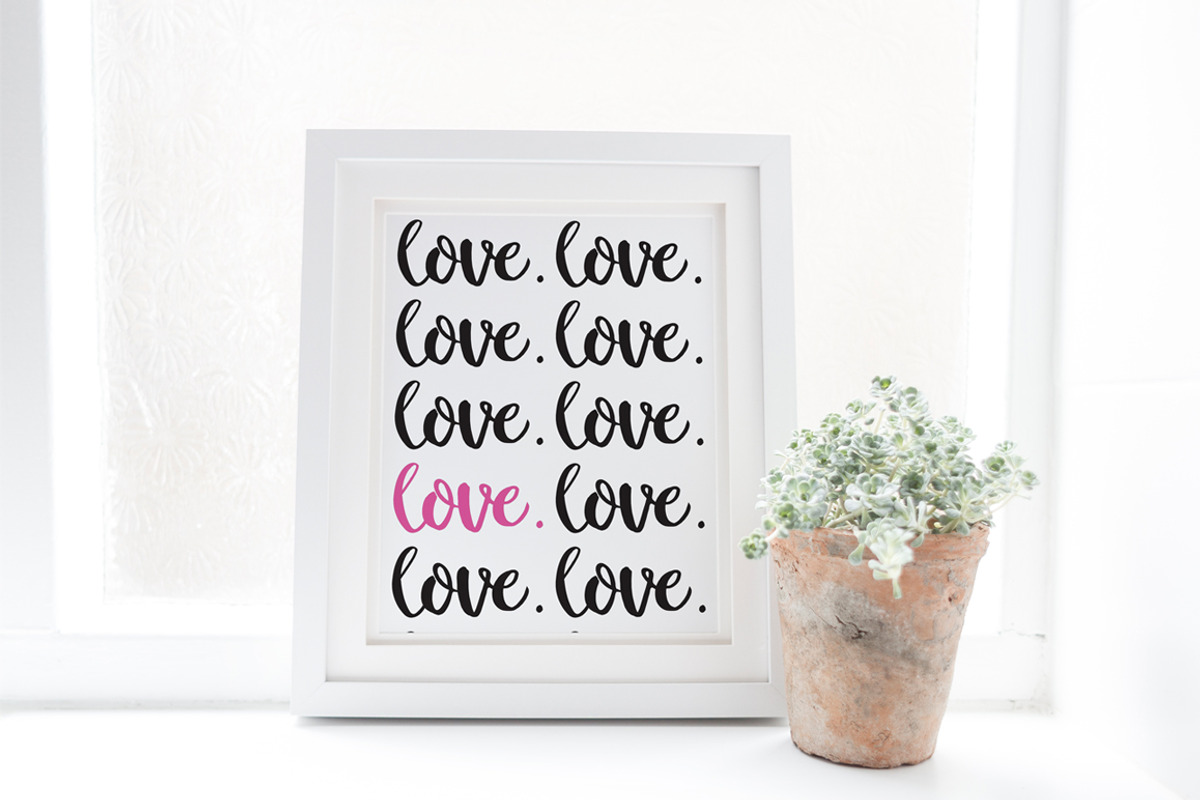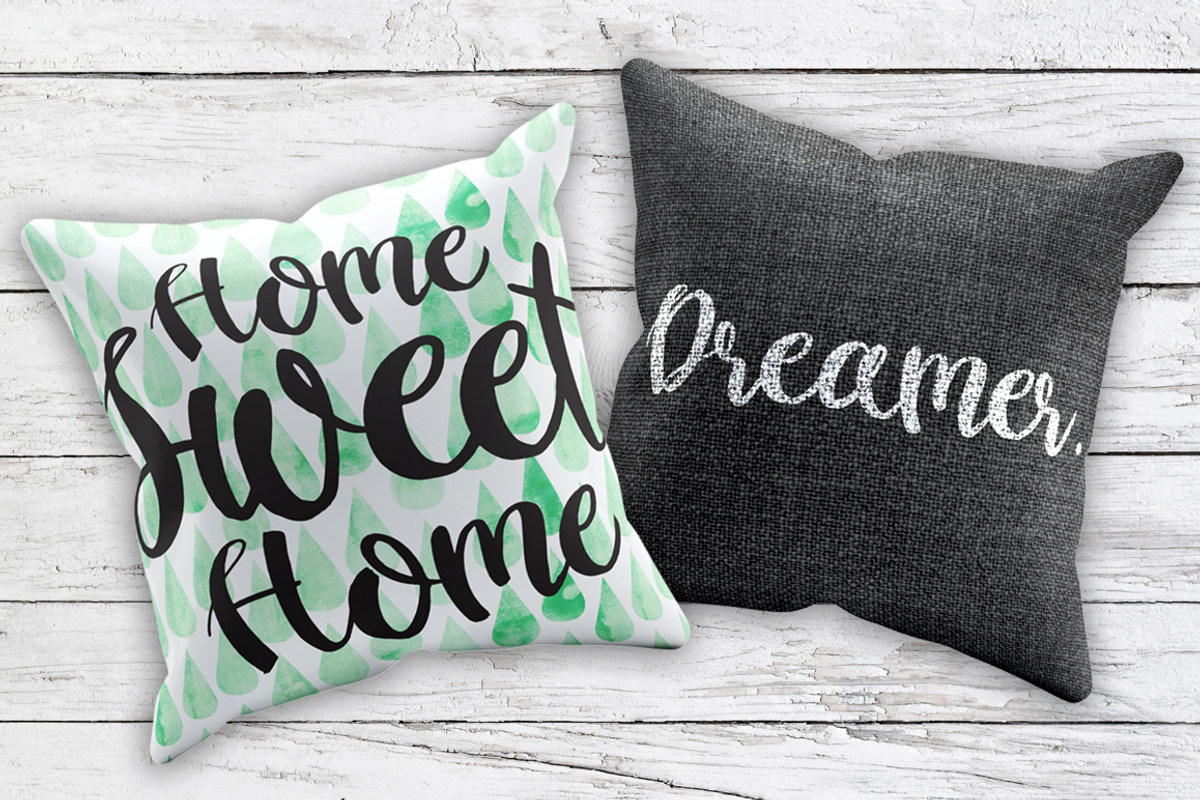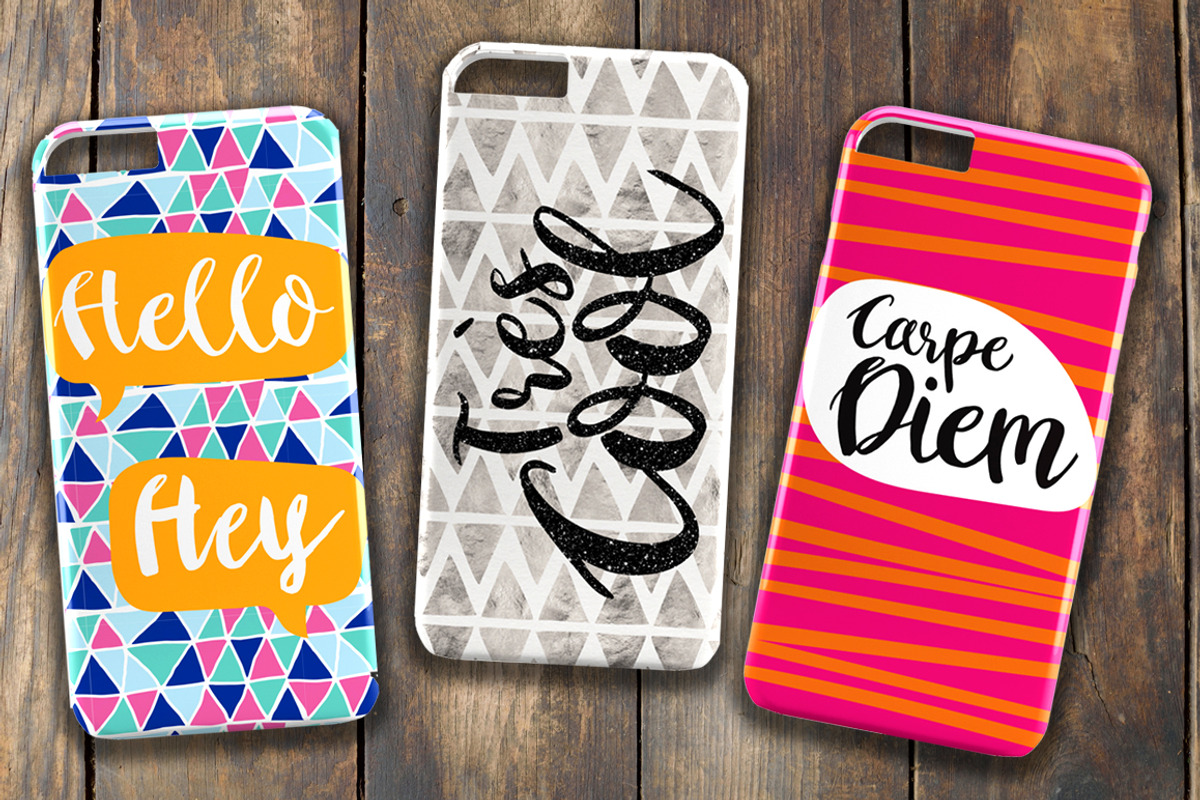
"Wildfox" Typeface-Hand drawn font
"Wildfox" Typeface-Hand drawn font by Shelly Laslo Illustration is a font selected for branding, posters, packaging, typography.
- Wildfox Regular
Why "Wildfox" Typeface-Hand drawn font is worth a look
"Wildfox" Typeface-Hand drawn font by Shelly Laslo Illustration fits naturally into Branding, posters, packaging, typography.